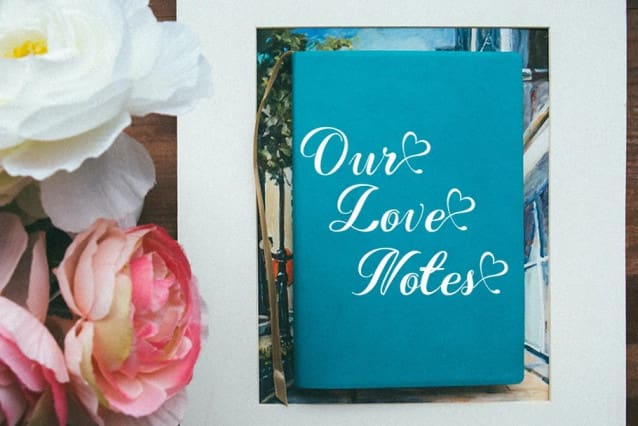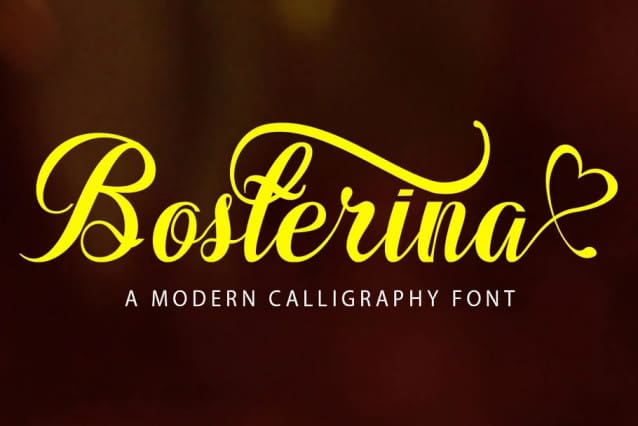
Bosterina Script Font
Bosterina Script Font is a script typeface with a noble, vintage look., this font has a model Trendy, natural and gentle, with this font you can take advantage of the opportunity in every moment of one wonderful way to highlight the celebration of the feast of your best, because this font will be advocates for purposes such as wedding invitations, party, graduation, birthday, gathering, etc.